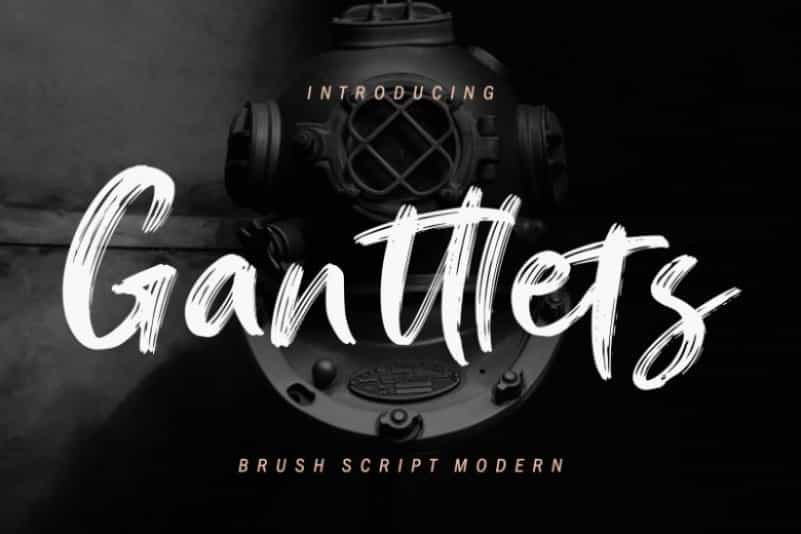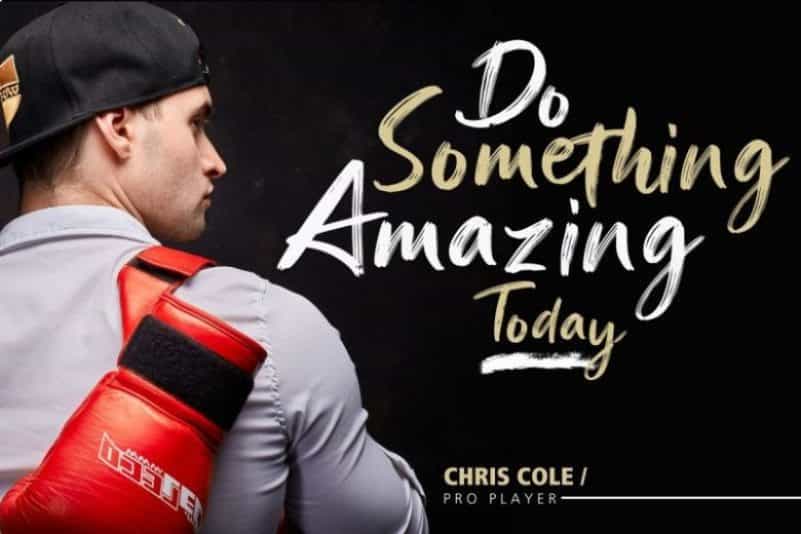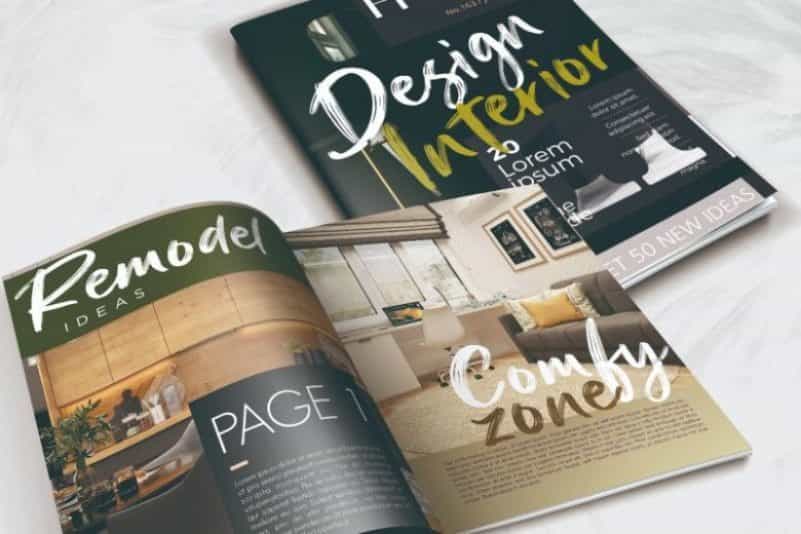
Ganttlets is a sophisticated and lovely brush font that will complement your project nicely. Best for logos, corporate identity, wedding, social networks, advertisements, product box, labels, photography, watermarks, invitations, greeting cards and any other project that needs elegance.